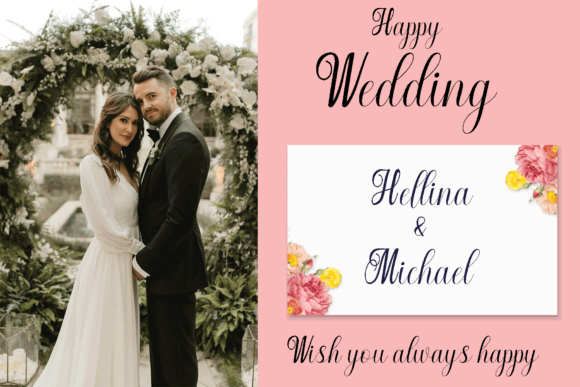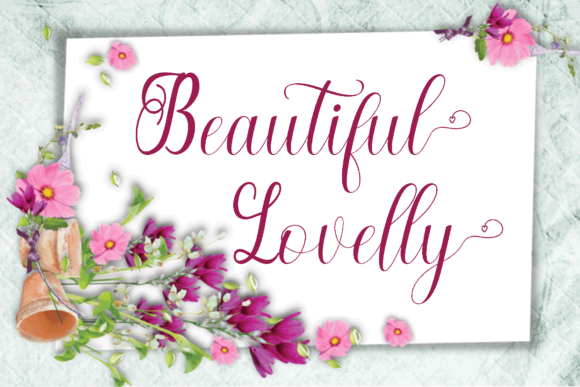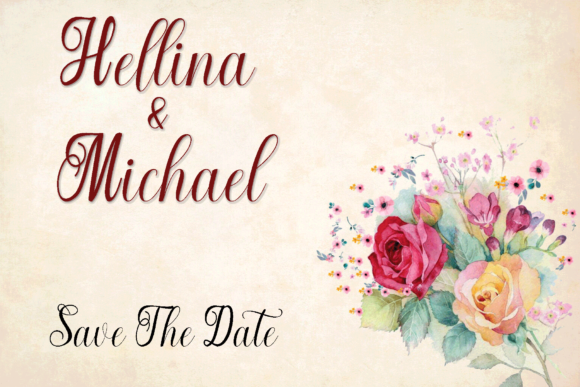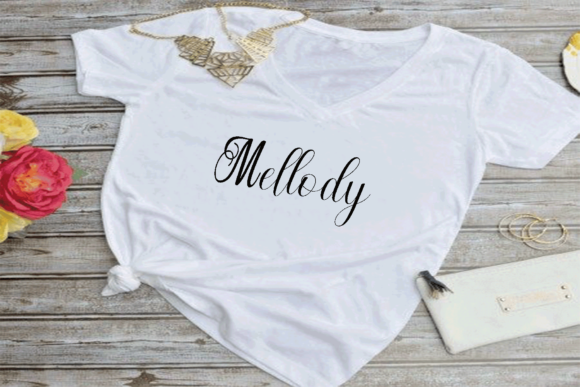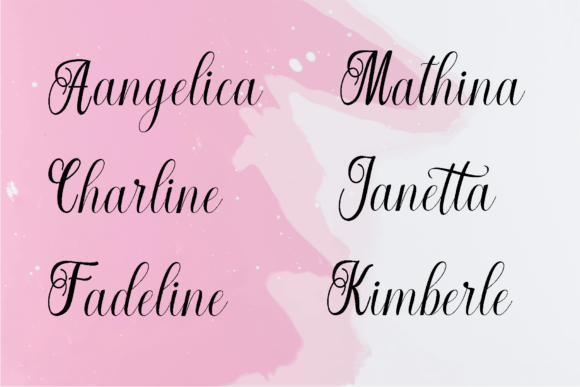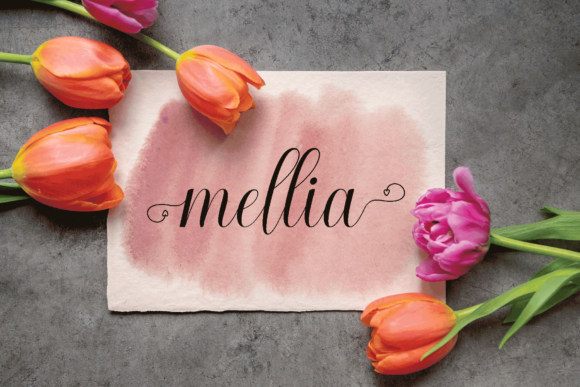
Introduction to Nattalia Font
Nattalia is a sweet and romantic handwritten font with an incredibly friendly feel.
It features gorgeous swashes and ligatures that make this script incredibly versatile Whether youโre looking for fonts for Instagram or calligraphy scripts for DIY projects, Nattalia will turn any creative idea into a true piece of art.
Key Features of Nattalia Font